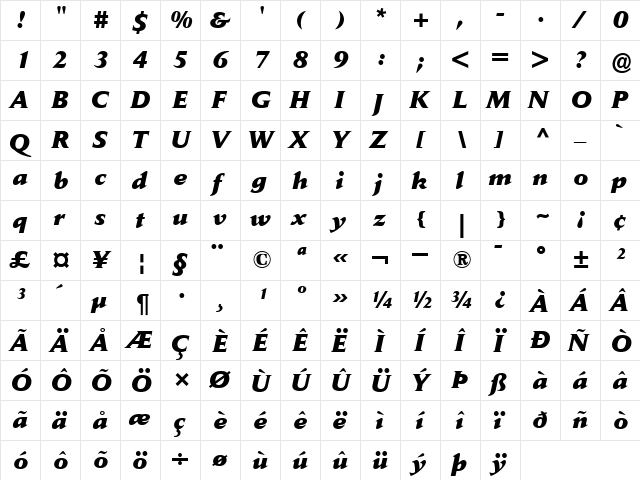
JaegerDailyNews-ExtraBold Extra BoldItalic Font Preview
Design Context for JaegerDailyNews-ExtraBold Typeface
JaegerDailyNews-ExtraBold offers clean, dependable letterforms without strong stylistic allegiance, making it a practical choice for designers who need flexibility. The dynamic lean of this cut emphasises speed and emphasis in any layout. Its bold stroke weight gives it real presence on the page.
Pro Tip: Try JaegerDailyNews-ExtraBold for annotation and caption copy alongside an upright companion — the contrast in angle creates a dynamic but ordered typographic system.